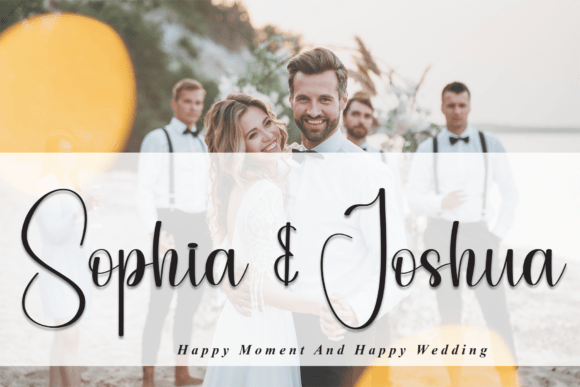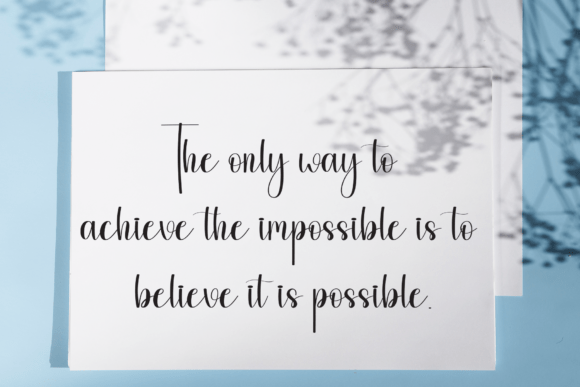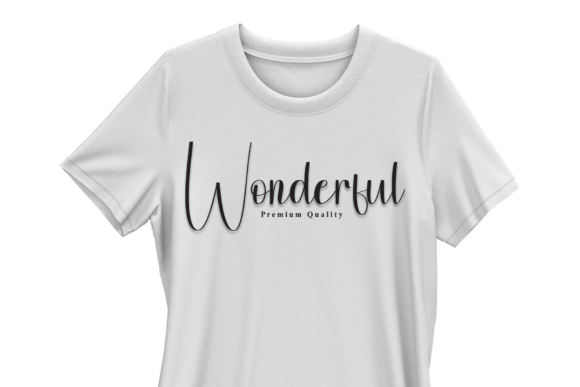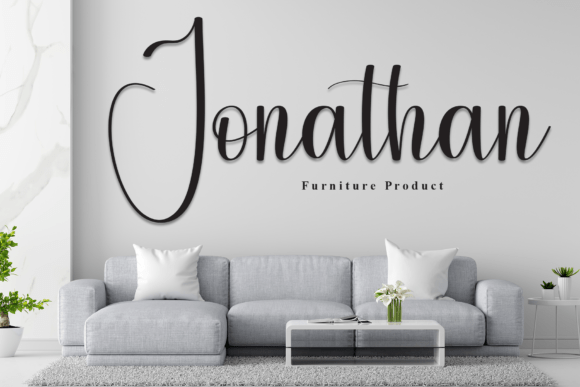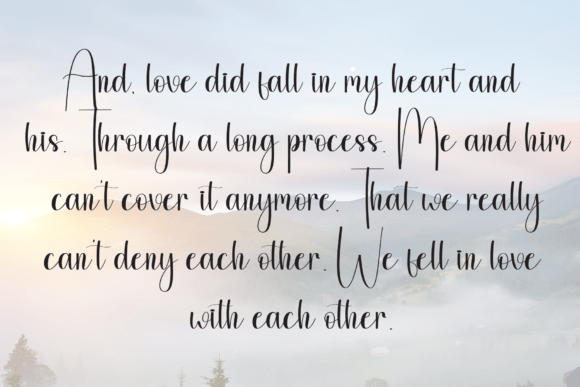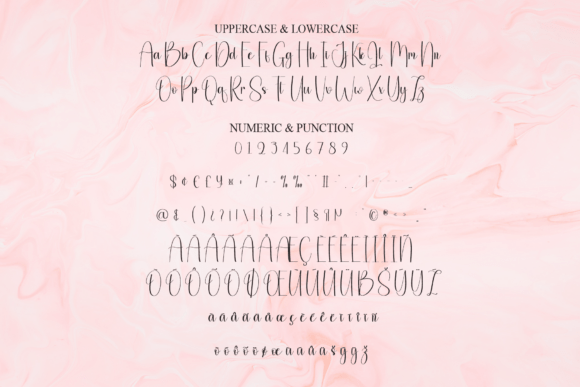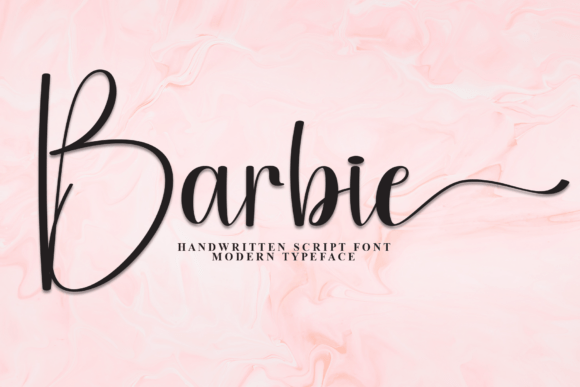
Introducing Barbie Font: The Epitome of Elegance and Charm
In the world of typography, few fonts manage to capture the essence of style and sophistication as effortlessly as the Barbie Font. This stunning handwritten script font has been making waves in the design community, and for good reason. With its fluid, graceful strokes, Barbie Font is the perfect addition to any design project that requires a touch of elegance and charm.
The Characteristics of Barbie Font
So, what sets Barbie Font apart from other fonts in its class? For starters, its smooth, cursive strokes exude a sense of refinement and luxury. The font’s natural flow and fluidity create a sense of movement, making it perfect for designs that require a touch of dynamism. Whether you’re working on a branding project, creating custom invitations, or designing elegant stationery, Barbie Font is sure to impress.
Perfect for Branding, Invitations, and Stationery
Barbie Font’s versatility is one of its most significant advantages. Its sophisticated and elegant appearance makes it an excellent choice for a wide range of design applications. Here are just a few ways you can use Barbie Font to elevate your designs:
- Branding: Add a touch of luxury to your brand’s identity with Barbie Font. Its elegant appearance makes it perfect for high-end brands, fashion labels, and lifestyle companies.
- Invitations: Create stunning invitations for weddings, baby showers, and other special occasions with Barbie Font. Its refined appearance is sure to impress your guests and set the tone for a memorable event.
- Stationery: Elevate your stationery designs with Barbie Font’s smooth, cursive strokes. Perfect for letterheads, business cards, and thank-you cards, this font adds a touch of sophistication to any written communication.
Why Designers and Crafters Love Barbie Font
So, why has Barbie Font become a favorite among designers and crafters? Here are just a few reasons:
- Elegance: Barbie Font’s elegant appearance adds a touch of sophistication to any design.
- Versatility: Its versatility makes it perfect for a wide range of design applications, from branding to stationery.
- Easy to Read: Despite its elegant appearance, Barbie Font is easy to read, making it perfect for body text and headings.
- Customizable: With its range of weights and styles, Barbie Font can be customized to suit any design project.
Tips for Using Barbie Font Effectively
While Barbie Font is an excellent addition to any design project, there are a few tips to keep in mind to ensure you get the most out of this beautiful font:
- Pair it with a Sans-Serif Font: Pair Barbie Font with a sans-serif font, such as Arial or Helvetica, to create a striking contrast.
- Use it for Headings: Barbie Font is perfect for headings and titles. Use it to create eye-catching headlines that draw attention.
- Experiment with Colors: Don’t be afraid to experiment with different colors to find the perfect match for your design.
- Pay Attention to Spacing: Make sure to pay attention to spacing and kerning to ensure your text is easy to read.
In conclusion, Barbie Font is a stylish handwritten script font that exudes elegance and charm. Its fluid, graceful strokes make it perfect for branding, invitations, and stationery. With its versatility, ease of use, and range of customization options, it’s no wonder designers and crafters love this font. Whether you’re working on a high-end branding project or creating custom stationery, Barbie Font is sure to add a touch of sophistication and refinement to your designs.
Get Ready to Elevate Your Designs with Barbie Font